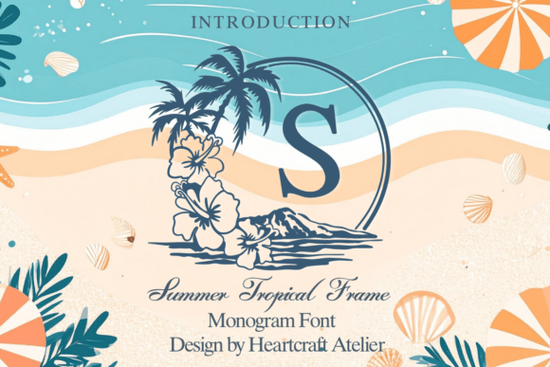
If you design anything for summer whether it's social media graphics, print-on-demand products, or handmade cards you know that the right font sets the whole mood. Summer Tropical Frame Font is a decorative typeface that brings a playful, vacation-ready feel to your projects. It belongs to the wider world of decorative fonts that work beautifully when you want something more expressive than a standard serif or sans serif.
What actually makes Summer Tropical Frame different from other decorative fonts?
Most decorative fonts give you letters and maybe a few ornaments. This one goes a step further by building frames into the design itself. Each character sits inside a tropical-themed border think palm leaves, hibiscus shapes, and geometric summer motifs. That means you don't have to layer a separate frame behind your text. The frame is the letter, and the letter is the frame. It saves you time and keeps your layout clean.
You also get full uppercase and lowercase letters, numbers, punctuation, and multilingual support. So if you're writing in Spanish, French, German, or Portuguese for an international audience, the accents and special characters are already there.
Where do designers actually use this font?
Because the characters are built inside frames, this font works best when your text is short and visible. Here are the real-world applications that fit it naturally:
- Greeting cards and invitations – Birthday cards, summer party invites, wedding save-the-dates, or just a handwritten-style note to a friend.
- Social media posts – Quotes, announcements, or "hello summer" graphics for Instagram, Pinterest, or Facebook stories.
- Print-on-demand products – Mugs, T-shirts, tote bags, and phone cases. Because the frame is built in, the design looks finished without extra embellishment.
- Banners and signage – Party banners, store window signs, or Etsy shop headers. The tropical theme is instantly recognizable.
- Stationery and journals – Diary covers, notebook titles, or sticker sheets. The font works well for bullet journal headers or scrapbook titles.
- Kids' products – Book covers, lunchbox labels, or classroom decor. The playful style appeals to children and parents alike.
Is this font easy to use if you're not a professional designer?
For Cricut and Silhouette users, the thick frame borders cut nicely on vinyl or cardstock. Just make sure you weld the letters together before cutting so the frames connect properly.
What kind of projects should you avoid with this font?
Because each letter takes up more visual space than a standard font, it's not ideal for long paragraphs, dense body text, or small sizes. If you try to write a full sentence at 12pt, the frames will overlap or become unreadable. Stick to short phrases, single words, or initials. Think of it as a display font something you use for impact, not for reading.
How does this font fit into the decorative fonts category?
Decorative fonts are meant to stand out. They carry a theme, a mood, or a time period. Summer Tropical Frame Font sits squarely in the seasonal decorative category, alongside hand-drawn scripts, retro slab serifs, and nature-inspired dingbats. What sets it apart is the built-in frame system, which removes the need for separate border elements. That's a small time-saver that adds up when you're producing multiple designs.
For comparison, if you were using a plain tropical leaf font, you'd still need to draw or find a frame to put around it. With this font, the frame is the letter. That makes it especially useful for print-on-demand sellers who need fast, repeatable designs that still look unique.
How can you get the most out of this font?
Here's a practical checklist to help you decide if it's right for your next project:
- Keep text short. One to four words maximum. The frames need room to breathe.
- Use contrasting colors. Because the frames are outlines, a light background with dark letters (or vice versa) gives the best readability.
- Pair it with a simple sans serif. Use Summer Tropical Frame for the headline and a clean font like Montserrat or Lato for subtext.
- Test it at different sizes. Before you finalize a design, scale the font up and down to see where the frames break or overlap.
- Weld before cutting. If you're using a Cricut or Silhouette, weld the letters in your design software so the frames cut as one connected piece.
- Experiment with color fills. Try filling the inside of the frames with a different color than the outline. It adds depth without extra work.